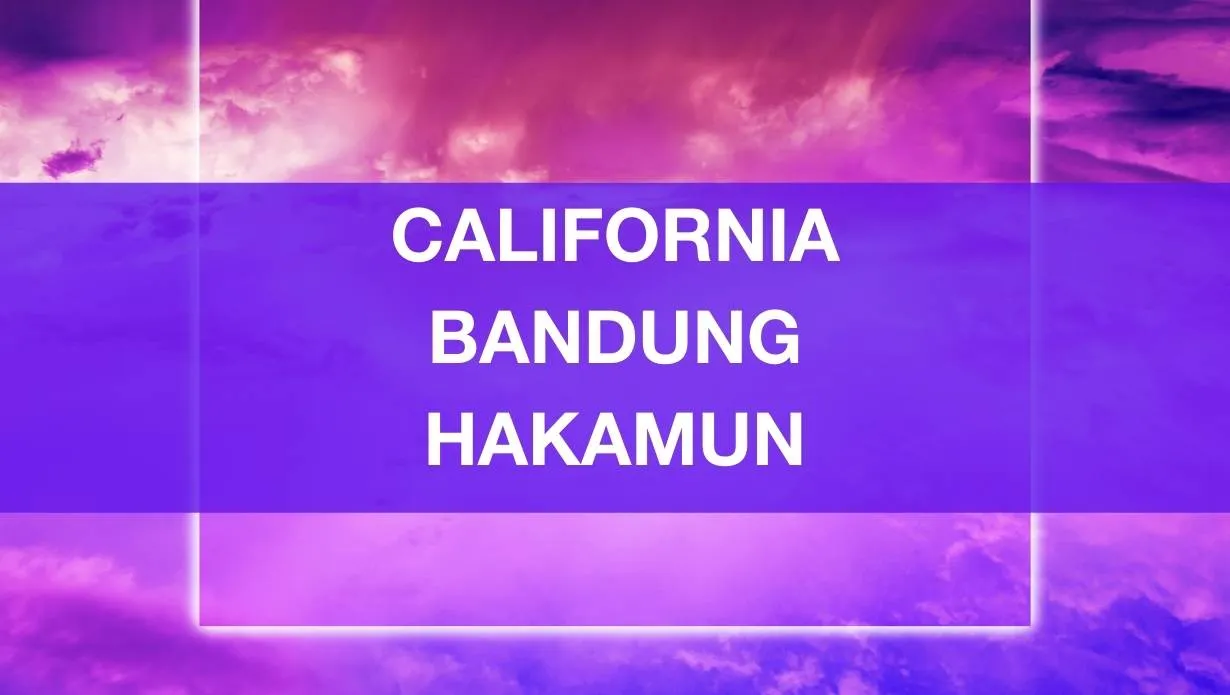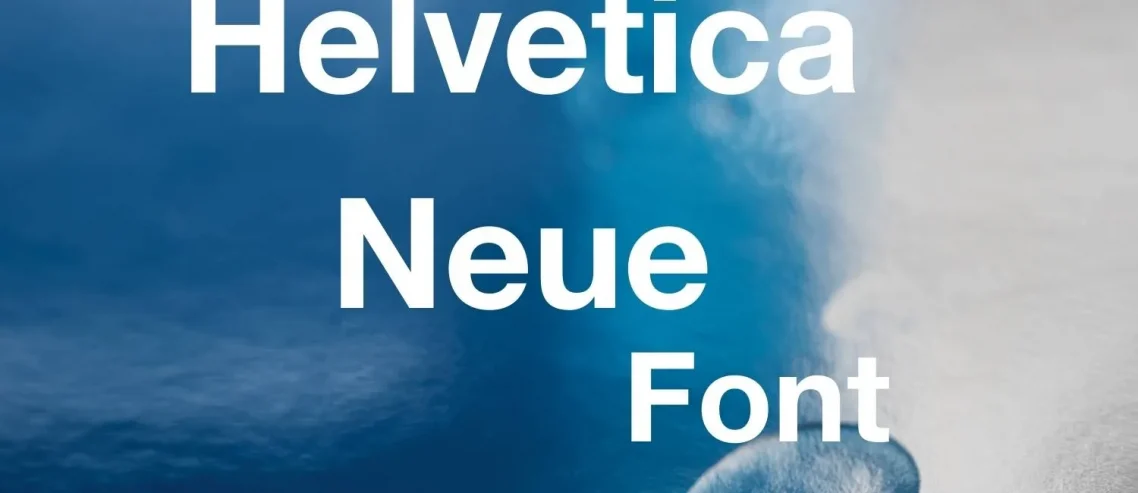
Helvetica Neue Font is included in the Helvetica typeface family. It is a Sans serif font and was designed by Max Miedinger and Eduard Hoffmann in 1957. This Font is one of the most popular fonts in the world. It is used in logos, websites, posters, and more.
View of Helvetica Neue Font
Helvetica Neue Font Info
| Name | Helvetica Neue Font |
| Designer | Max Miedinger and Eduard Hoffmann |
| Style | Sans Serif |